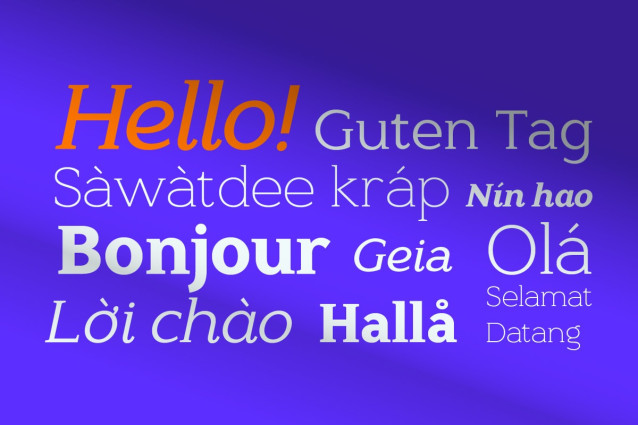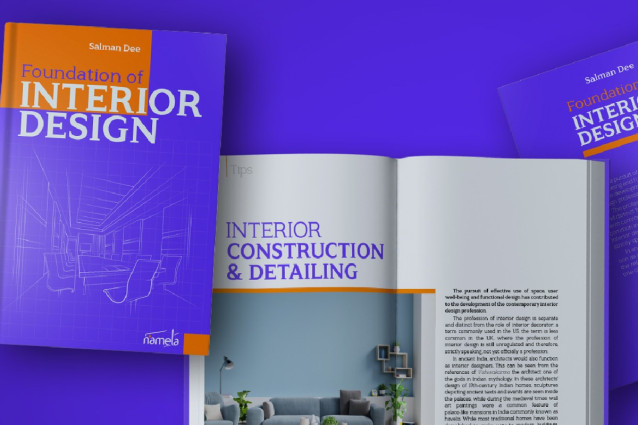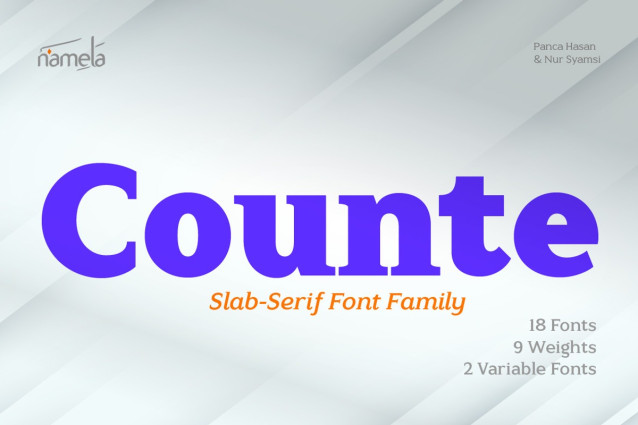
Counte Font Family
Counte Font Family is a Contemporary slab serif font family. Meticulously designed to seamlessly blend symmetrical bracketed serifs for the upright styles and cursive serifs for the italics. This collaborative approach results in a font that strikes a harmonious balance between tradition and innovation. An ideal choice for both text and printing applications.
Crafted with low-contrast strokes, this font exudes versatility. Whether you’re designing for a sleek digital interface or a bold print publication, it adapts effortlessly to your creative needs.
We’ve gone the extra mile to ensure international accessibility by incorporating extensive diacritic support. Additionally, the font is enriched with OpenType features, empowering you to explore creative possibilities like ligatures and more.
The Counte Contemporary Slab Serif Font consists of 9 weights, ranging from the delicate Thin to the commanding Black, each complemented by meticulously crafted italics. This comprehensive range ensures that you’ll find the perfect weight and style for any project, making this font family an indispensable asset in your design.